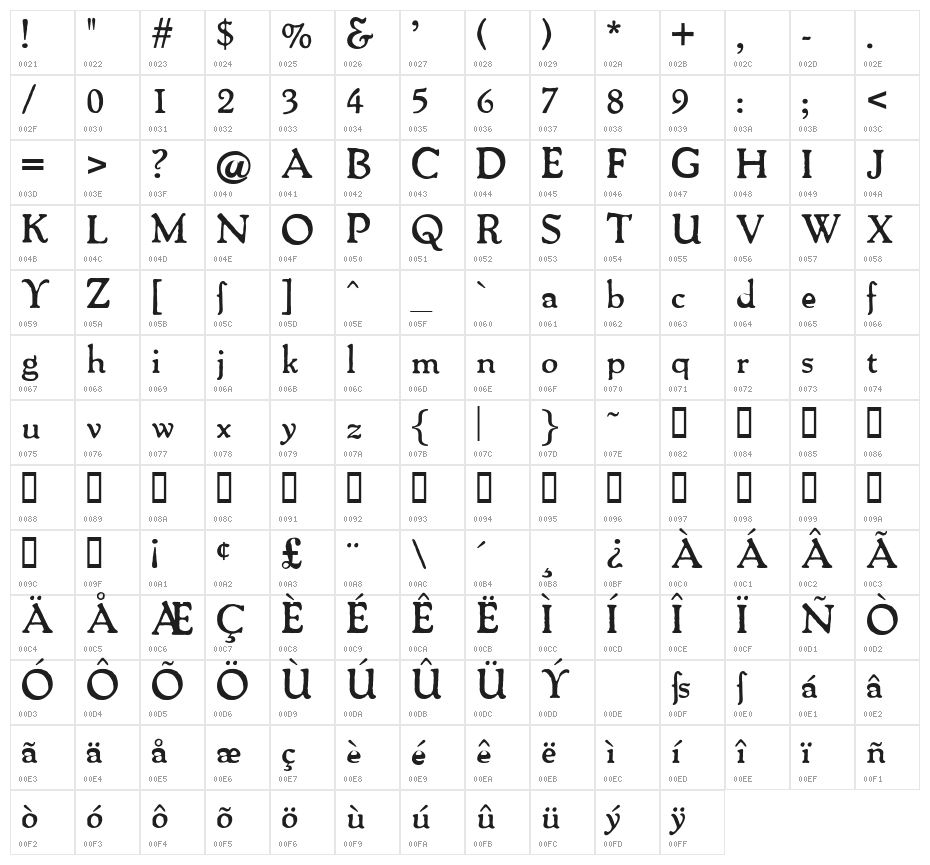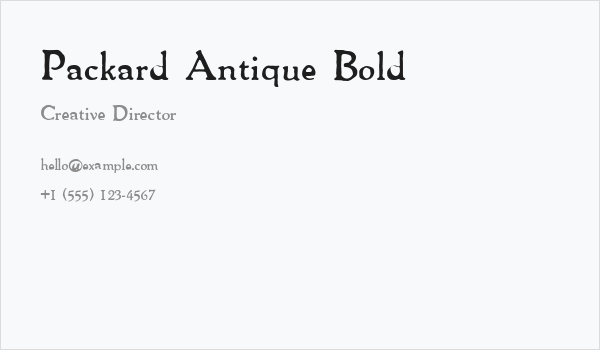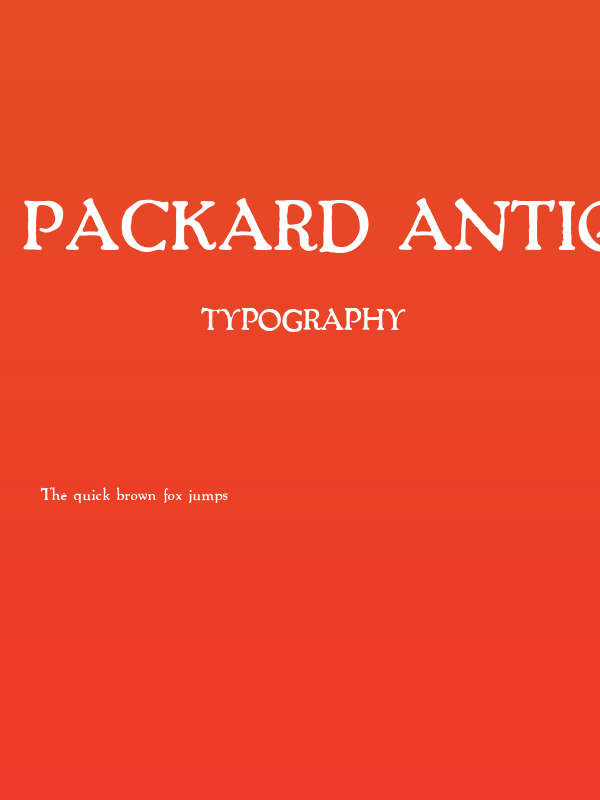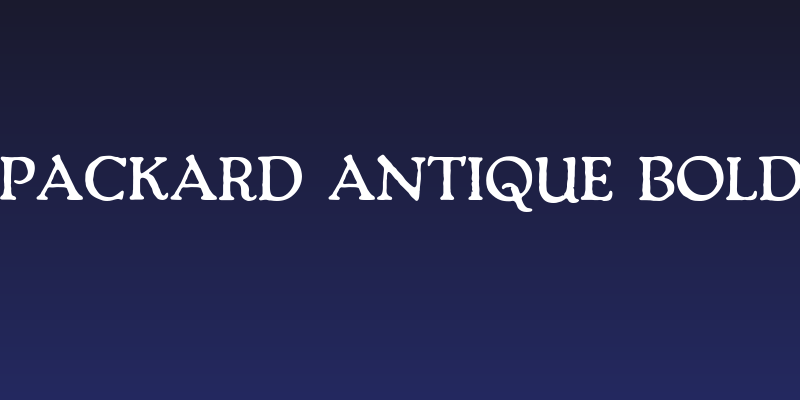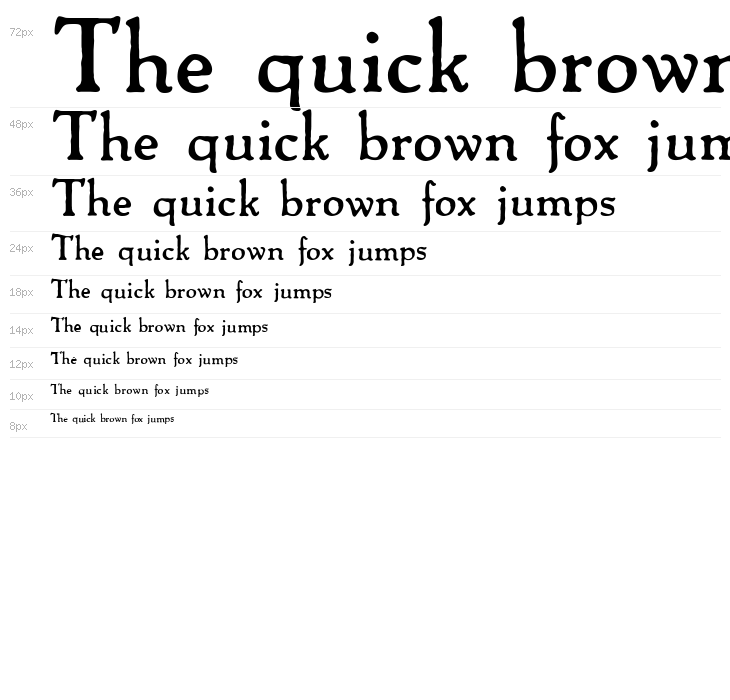
Packard Antique Bold Font
Packard Antique Bold Description
This font features a bold and antique style with a strong presence. The characters exhibit a slightly rough texture, giving them a hand-crafted appearance. The serifs are prominent and add a classic touch, while the overall design maintains a sense of elegance and tradition. The uppercase letters are robust and commanding, while the lowercase letters maintain a consistent flow. Numbers and special characters are designed with the same boldness, ensuring uniformity across all elements.
| Proposed Projects | Ideal for vintage-themed designs, posters, branding for traditional products, book covers, and any project requiring a classic and bold aesthetic. |